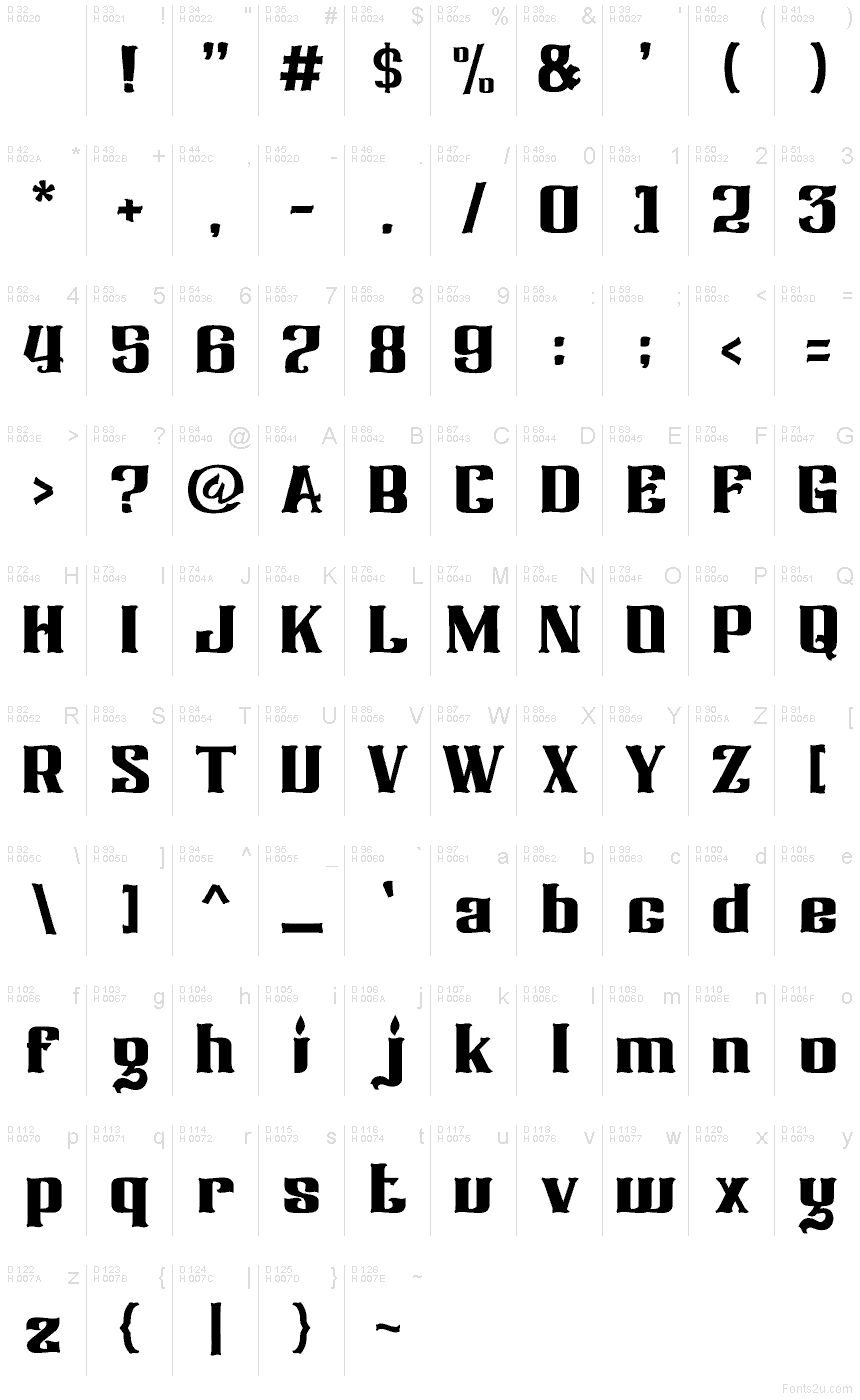
WESTERN LIGHT
Western light font is a typographic gem by Typeline Studio. Capturing the essence of the rugged Old West, this bold display font has decorative, uneven upper letters with thin serifs extended with rounded decors and spike-like tips. Lowercase letters are also irregular although most of them have NO serifs.
This truly unique Western-style free font is perfect for video game titles, packaging designs and posters. Use it in website headings and banners, mobile app interfaces and infographics. Western Light would also make a remarkable impression on T-shirts artistic logos that will mark their own place within any professional portfolio.